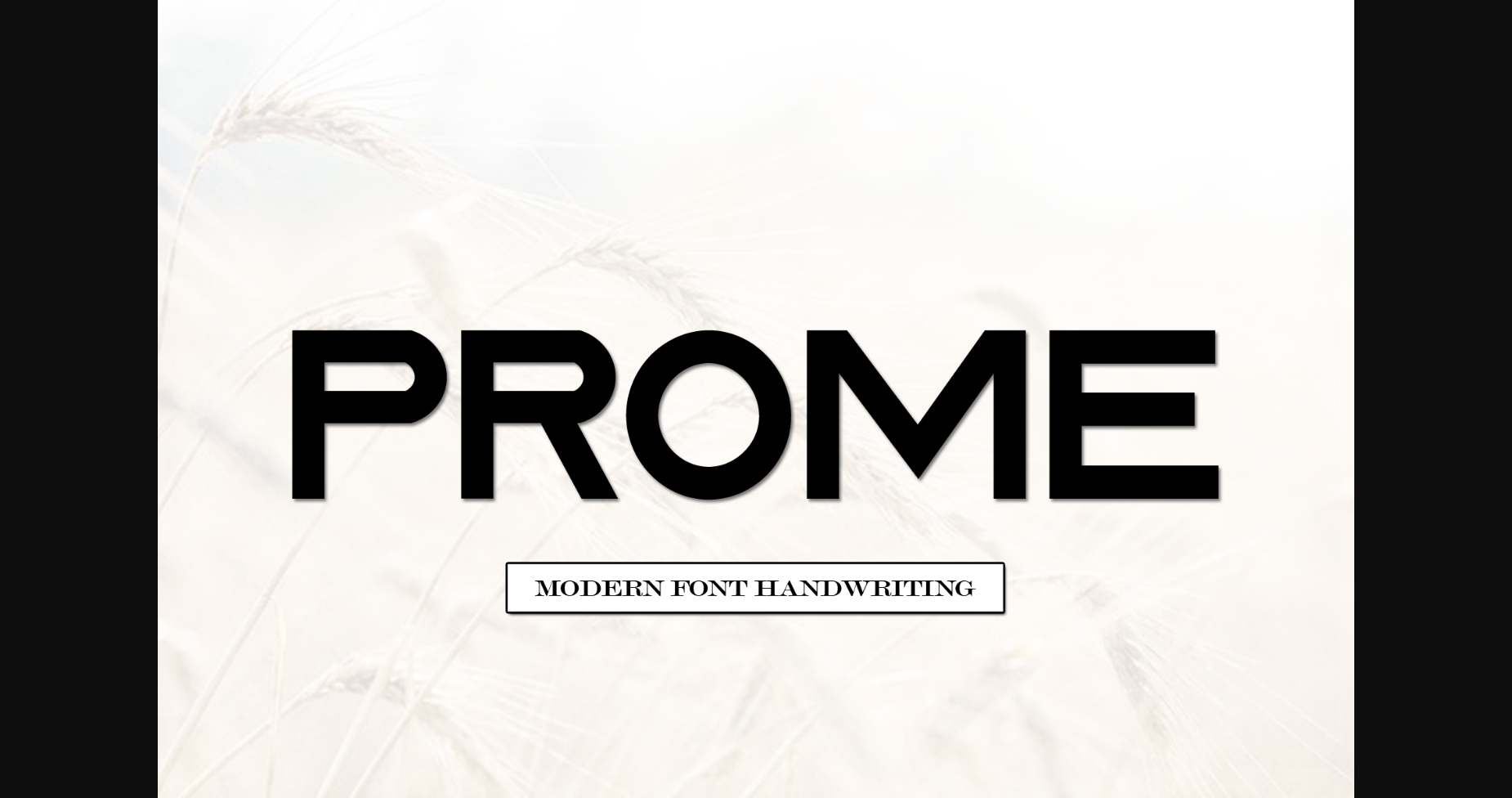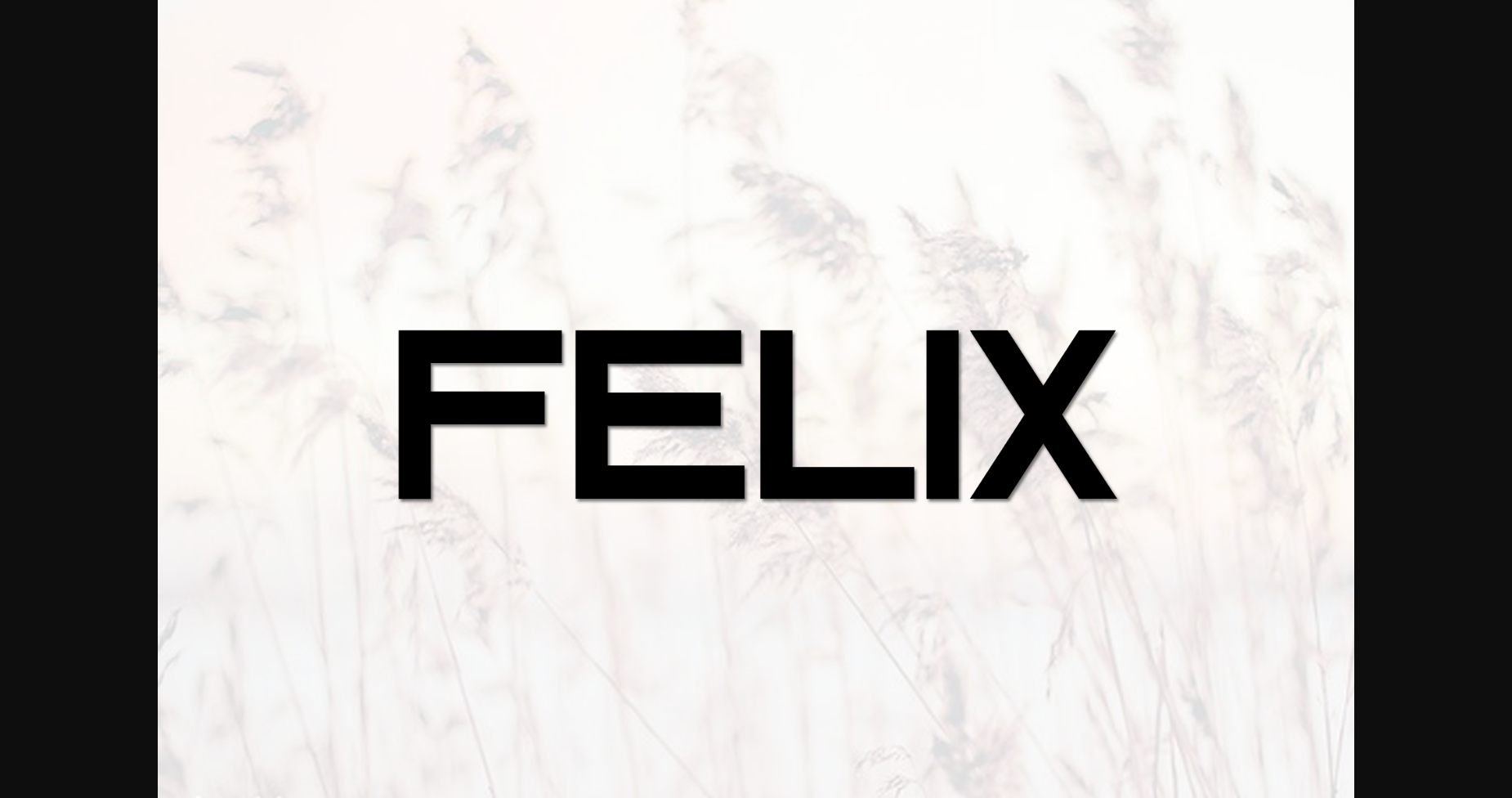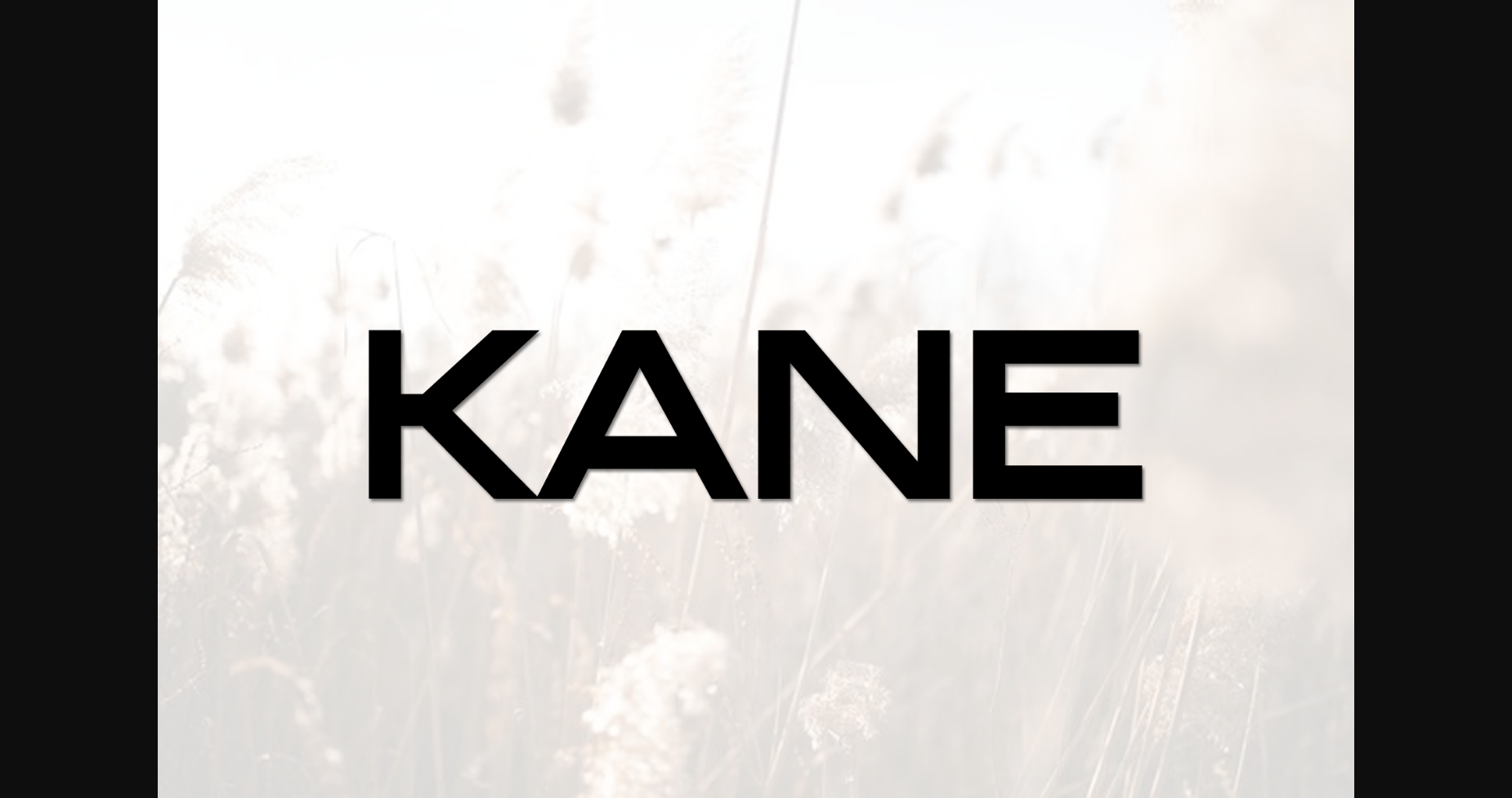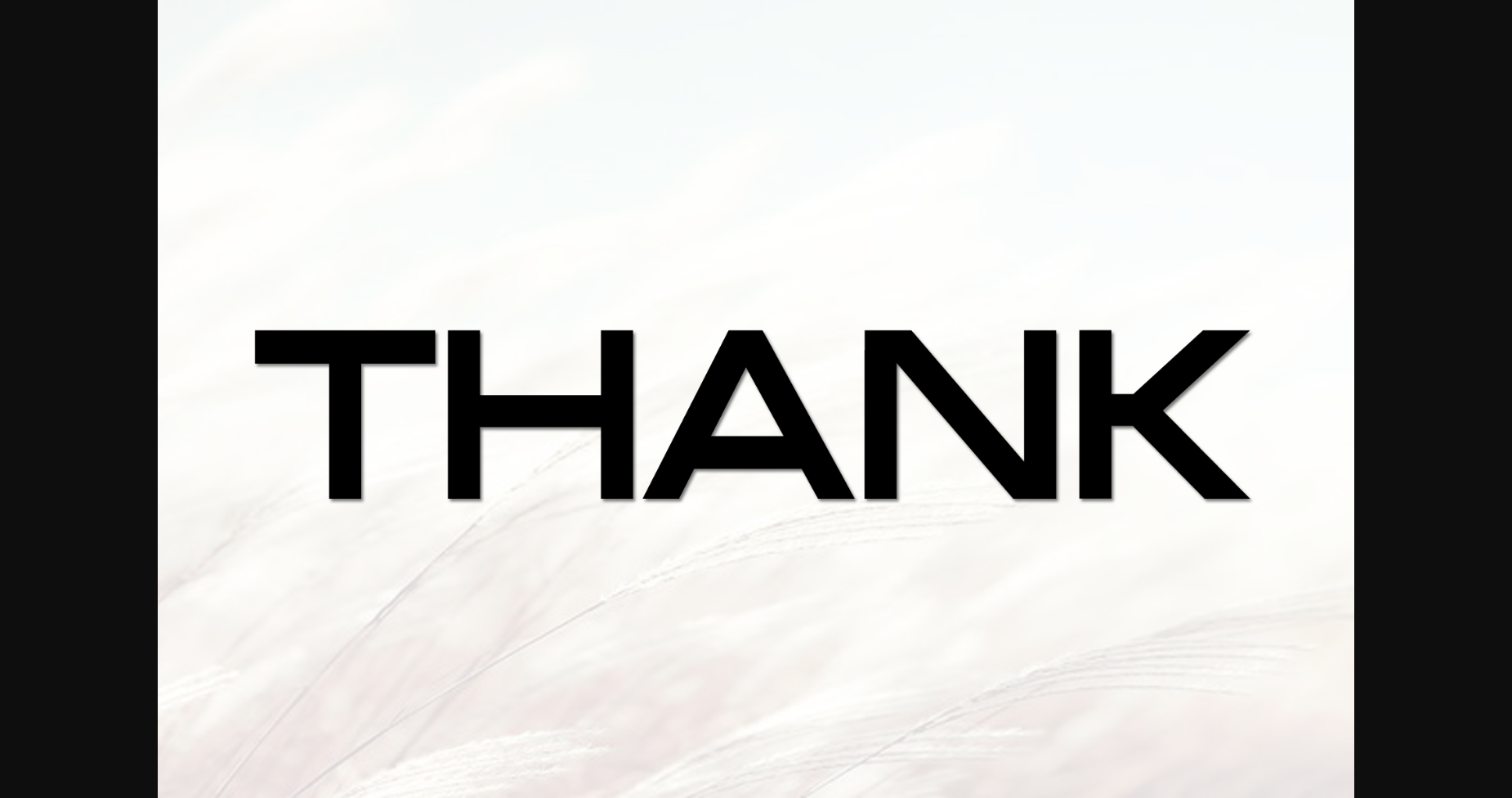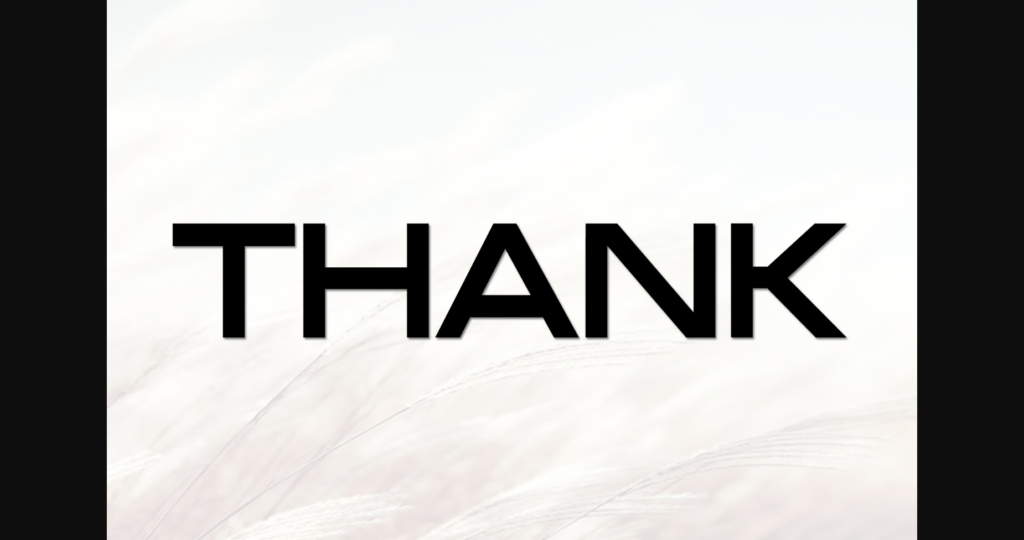
HomeSans Serif FontsProme Font Sans Serif Fonts Prome Font FacebookXPinterestWhatsApp 1 of 7 ... Prome Font Poster 2... Prome Font Poster 3... Prome Font Poster 4... Prome Font Poster 5... Prome Font Poster 6... Prome Font Poster 7... About Prome Font Prome is a stylish and very elegant sans serif font. It looks amazing on wedding invitations, thank you cards, quotes, greeting cards, logos, business cards and any other design that calls for a handwritten touch. DOWNLOAD NOW People also explored Nattalia Font Tygodnik Badriya Alona Font Honeymoon Font Pirates PW Font Futuristic Signature Font Dear Love Font Alpaca Pastel Font Ocean Wold Font 443 0 TagsPromeProme Font Previous articleAlexandria FontNext articleJaresh Font LEAVE A REPLY Cancel reply Comment: Please enter your comment! Name:* Please enter your name here Email:* You have entered an incorrect email address! Please enter your email address here Website: Save my name, email, and website in this browser for the next time I comment. Personal Use Free Antaro Personal Use Free Read more about this font The Most Beautiful Gift Personal Use Free Read more about this font Kitchen Blue Personal Use Free Read more about this font Histeria Bites Personal Use Free Read more about this font BLOG Fonts That Capture the Spirit of New York City New York City is more than just a place—it’s an experience, a rhythm, a visual language... The 10 Best Handwriting Fonts to Add Personality to Your Designs Free vs Paid Fonts: Why Investing in Premium Fonts Is Worth It Best Fonts for T-Shirt Design – Top 2025 Picks